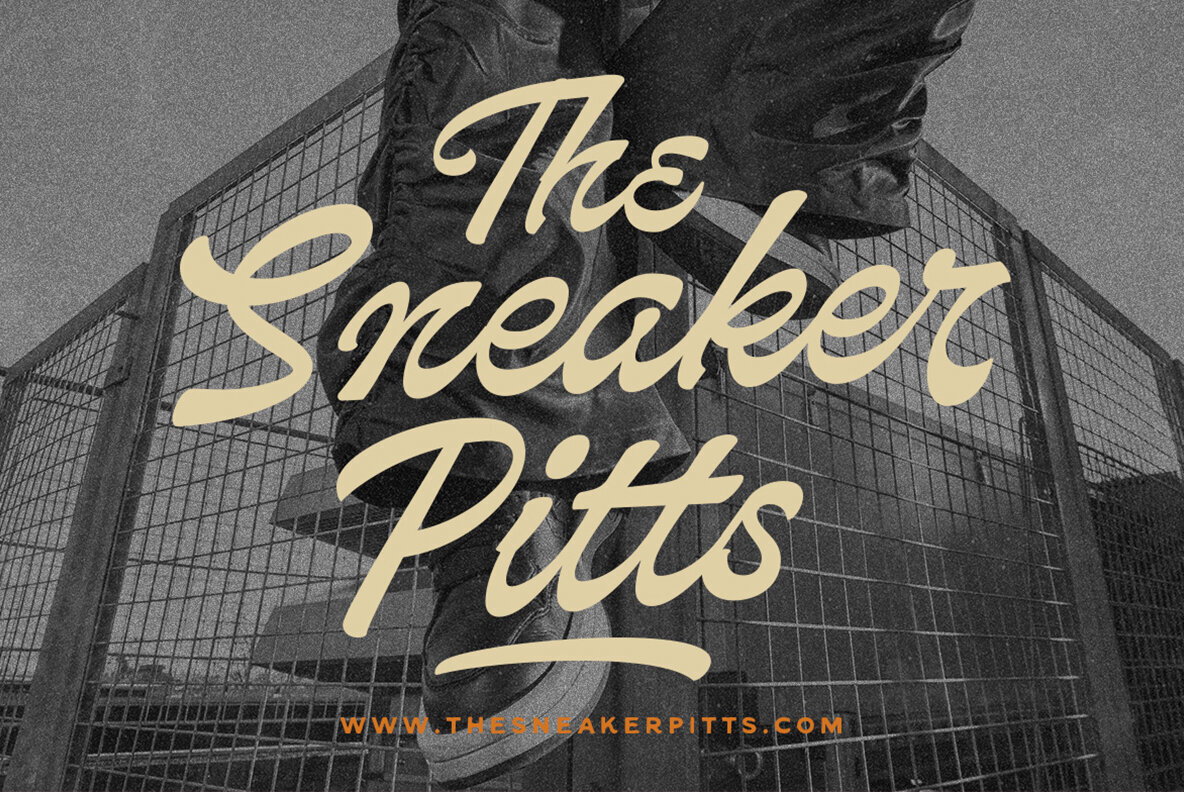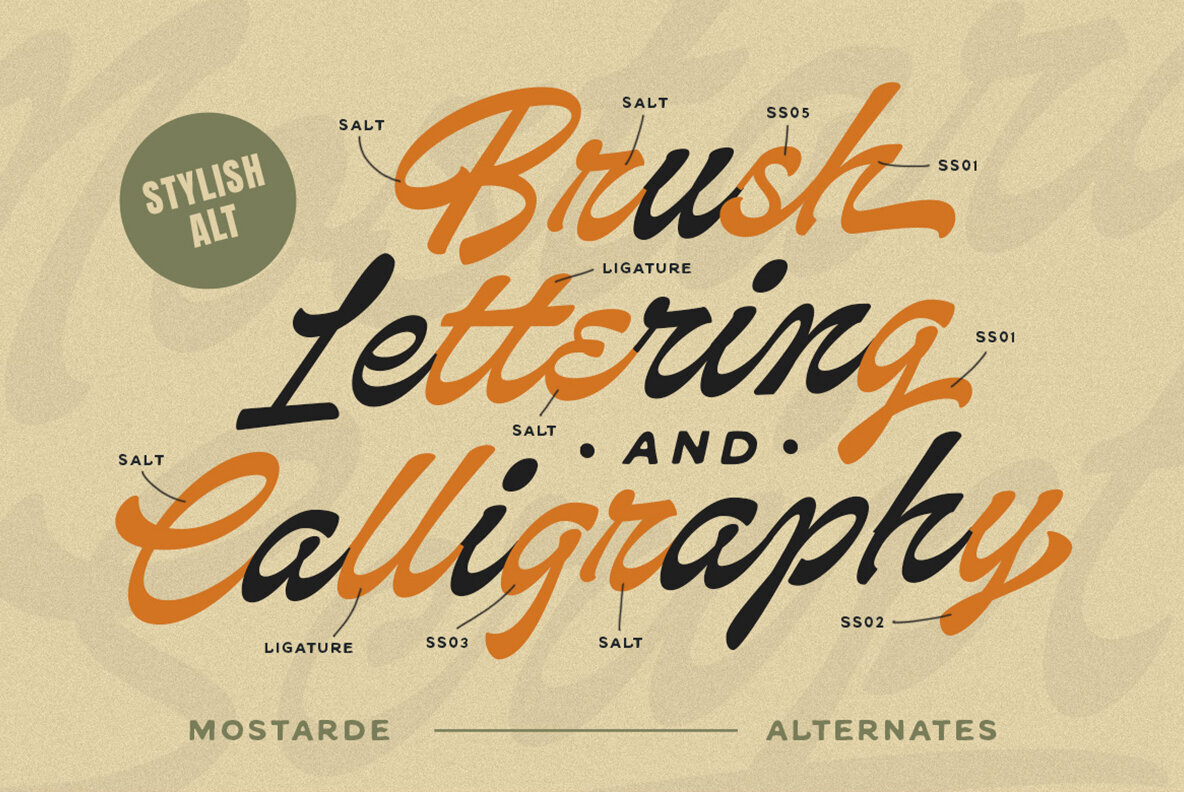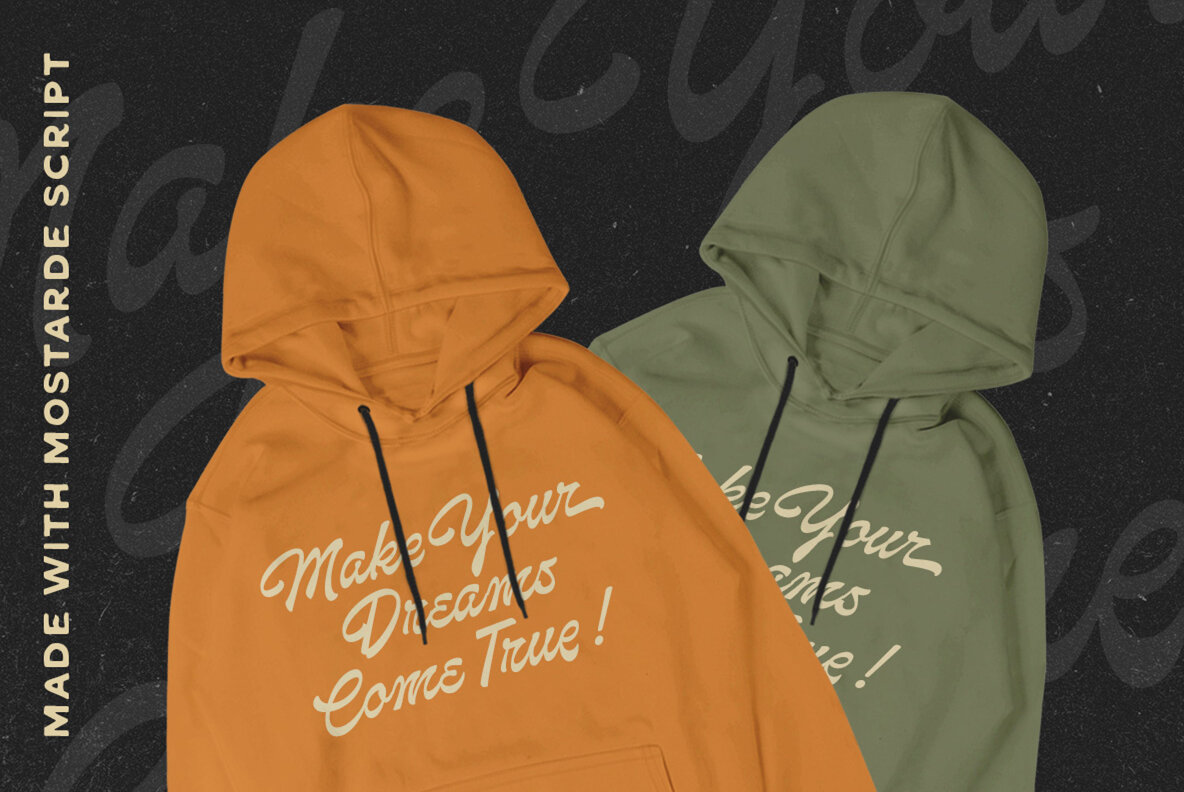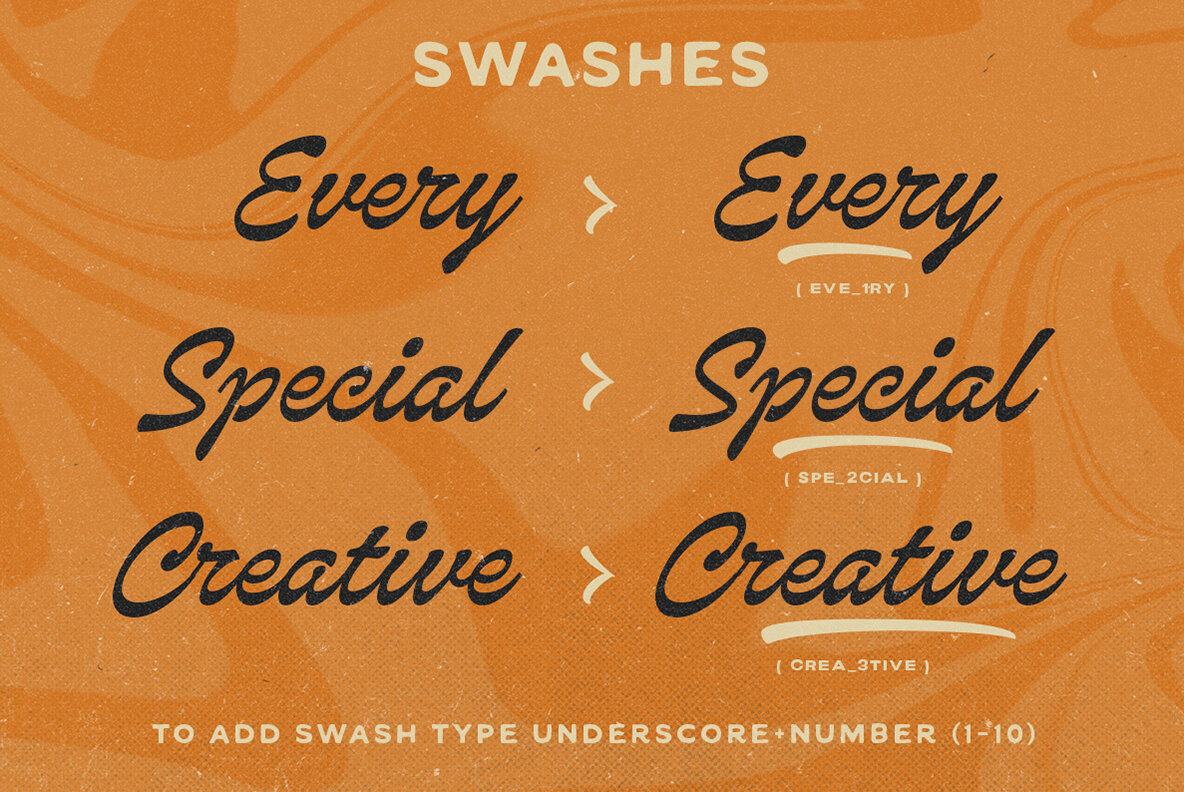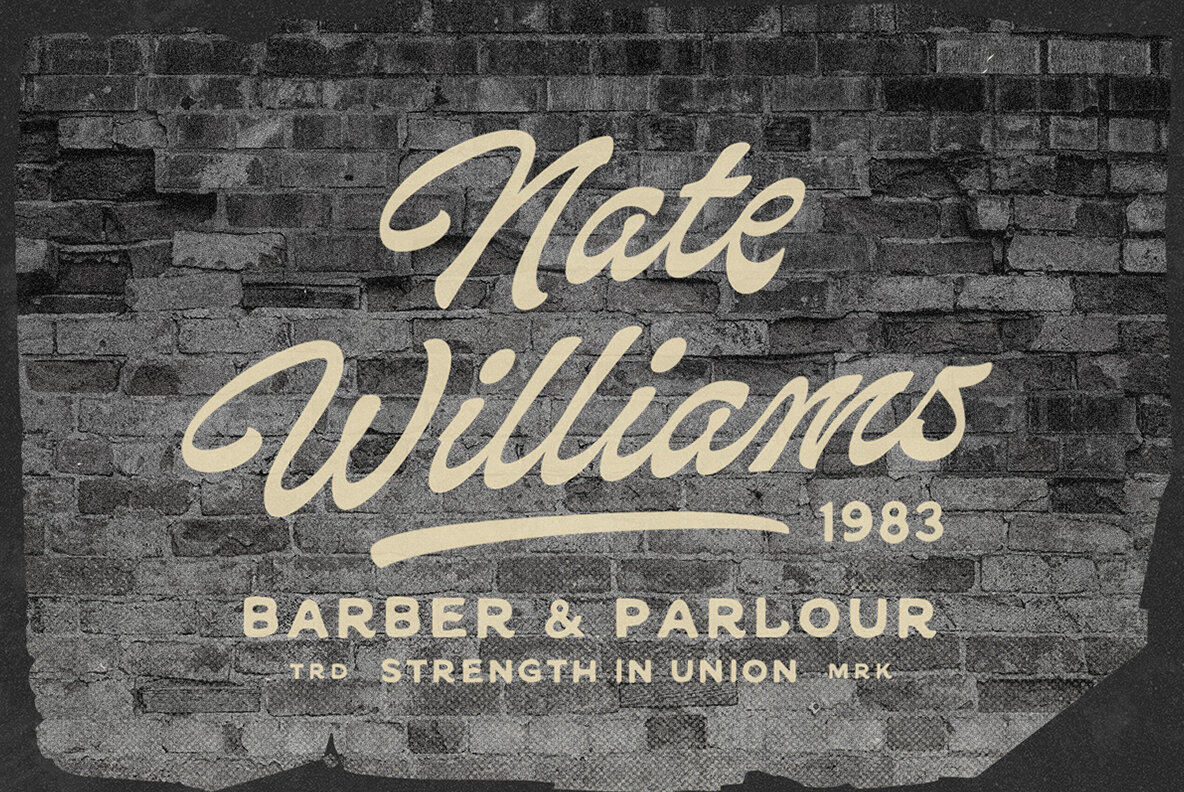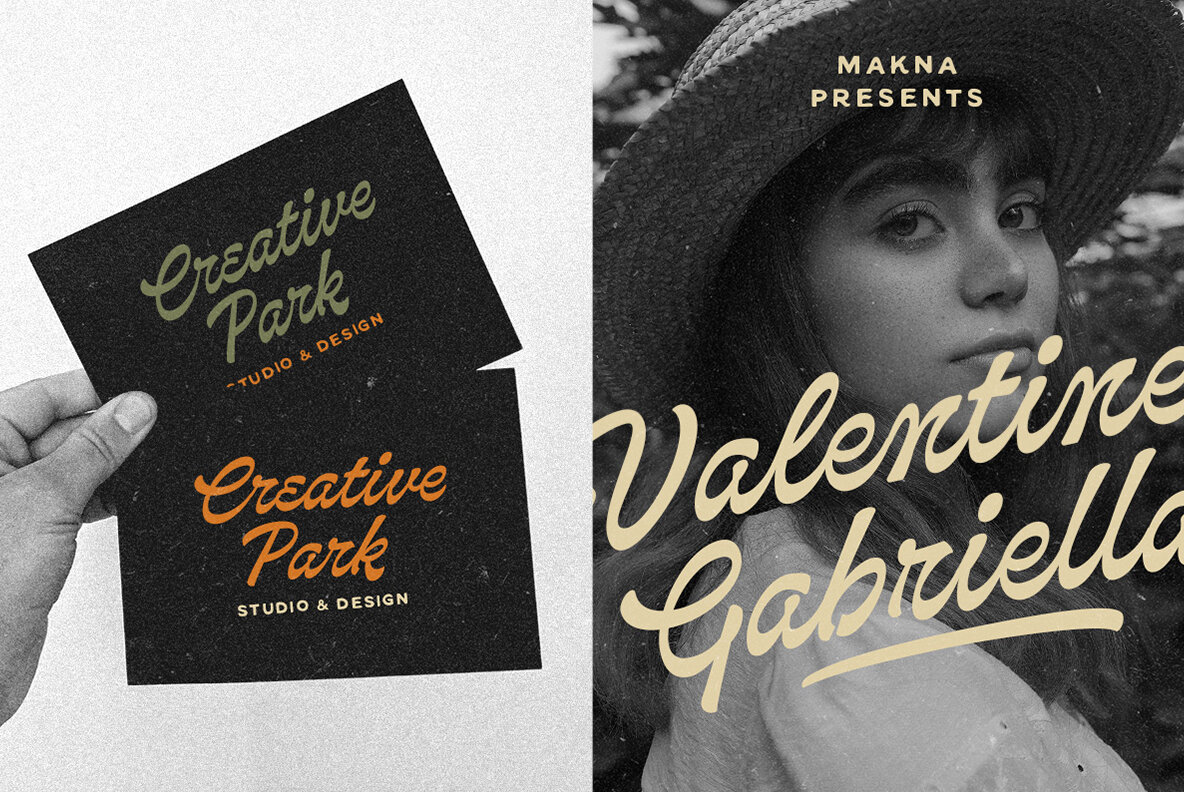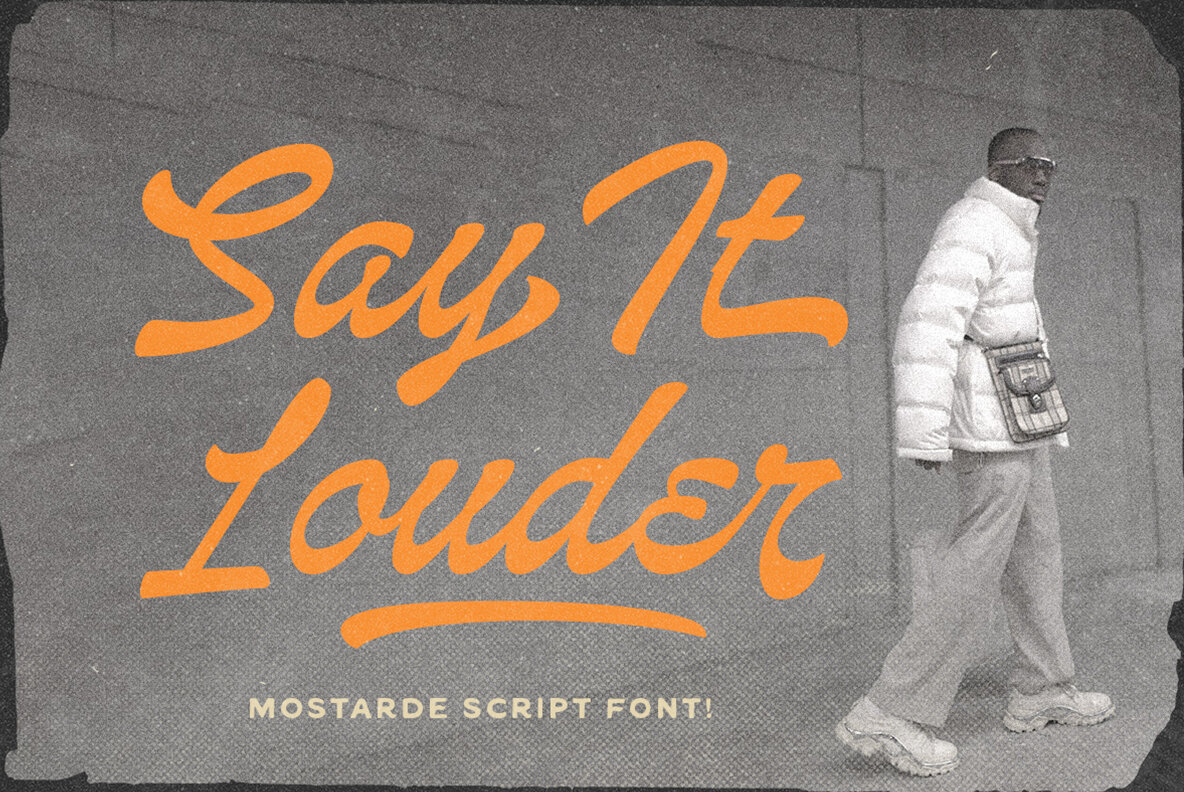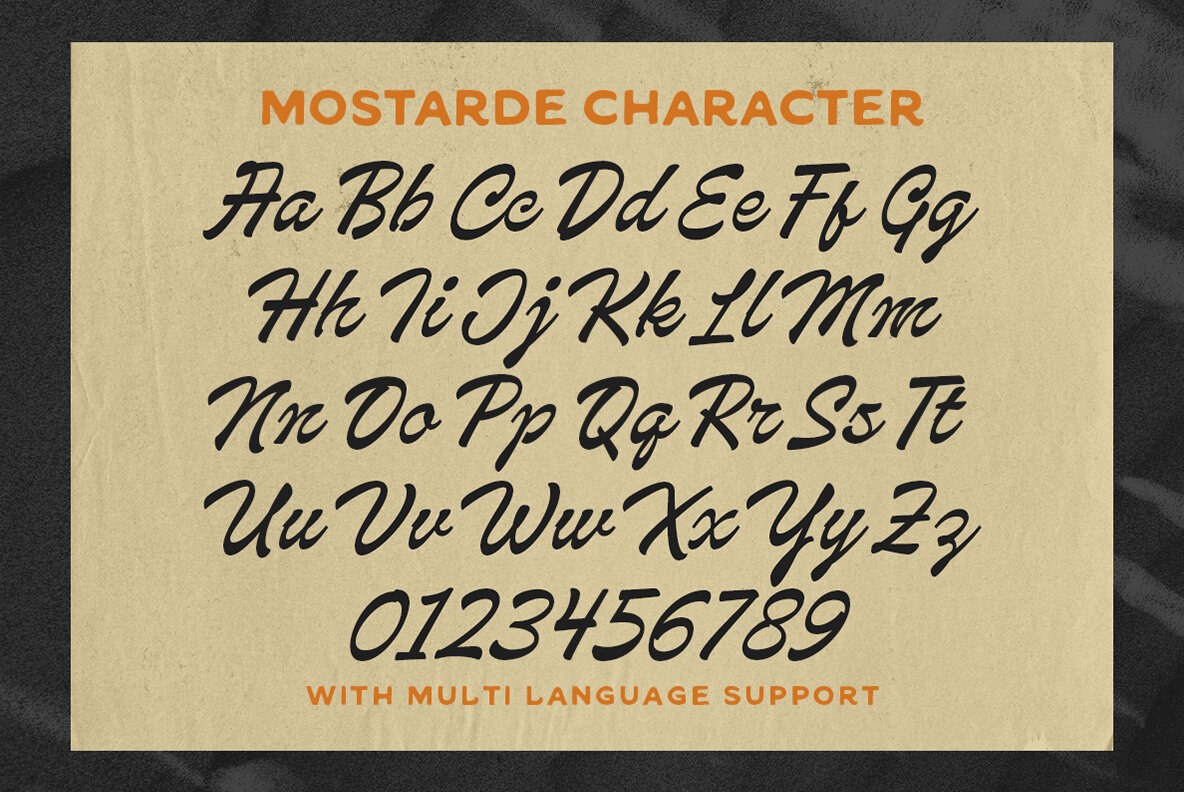
Mostarde Font
Mostarde Script
Mostarde is a striking script typeface that captures the essence of hand lettering. With its bold design, attractive swashes, and versatile alternates, this font is ideal for a wide array of formal applications.Mostarde: Bold Script Typeface with Hand Lettering Charm
Perfect For Diverse Applications